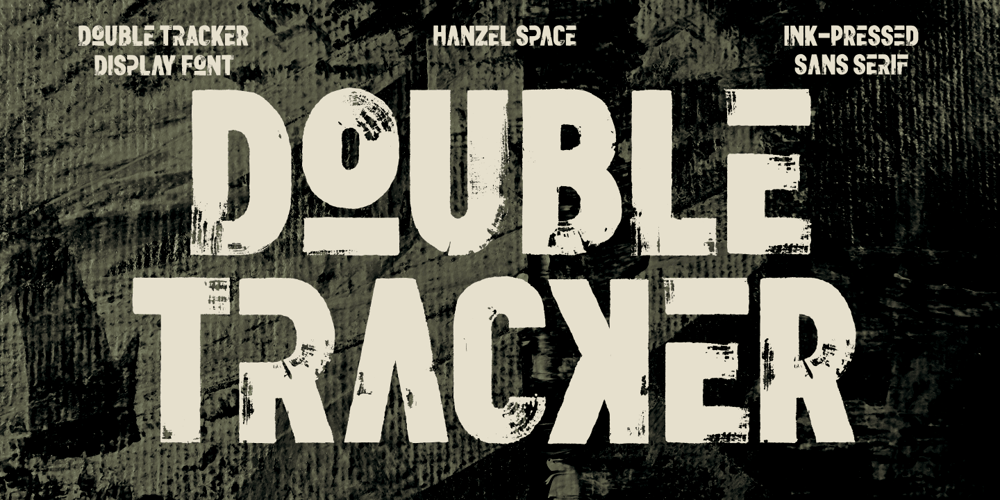
Double Tracker Font Family was designed by Hanief Farandi and published by Hanzel Space. Double Tracker contains 1 styles and family package options. Double Tracker is an inspiration for a font with paint strokes so that it has a texture that seems natural, done with an original ink stroke process.. The strong and sturdy design makes it ideal for eye-catching headlines, branding, packaging, magazines, sports, logos, and more.Happy Creating! Hanzel Studio